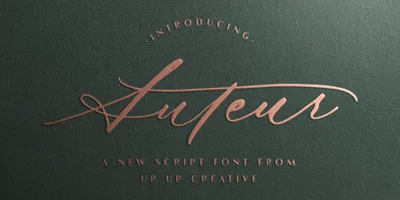
Auteur Font
Auteur Font is an exceptional choice for projects that demand a sophisticated, artistic, and distinctly cinematic aesthetic. It's perfectly suited for film titles, independent movie posters, theatre programs, elegant event invitations, high-end editorial designs, and any application where you want to evoke a sense of creative vision and refined storytelling. Imagine it gracing the opening credits of an art-house film, adding an air of intellectual depth to a literary magazine, or giving a distinctive, handcrafted feel to a director's personal branding. Its thoughtful design and harmonious proportions ensure your message is conveyed with both elegance and an undeniable artistic flair.
What makes Auteur Font so exciting is its ability to blend classic typographic principles with a subtle, contemporary sensibility, giving it a timeless yet fresh appeal. It captures the essence of a visionary creator, suggesting a meticulous attention to detail and a commitment to compelling narrative. This font isn't just about displaying text; it’s about setting a mood, adding a layer of sophisticated artistry and intelligent design to your visuals. It's the ideal tool for designers who want their work to feel curated, impactful, and truly memorable, reflecting a deep appreciation for craft and storytelling.
The Auteur Font family typically offers a range of weights and styles to provide comprehensive design flexibility. You might find a standard Regular weight that embodies its core elegant design, along with potential variations such as a Light for subtle refinement or a Bold for pronounced impact and emphasis. Some families might also include italic versions or stylistic alternates that enhance its unique, artistic character. These nuances ensure that Auteur Font can be the cornerstone of a truly unique and powerfully thematic visual identity, helping your designs stand out with an undeniable sense of character and artistic integrity.